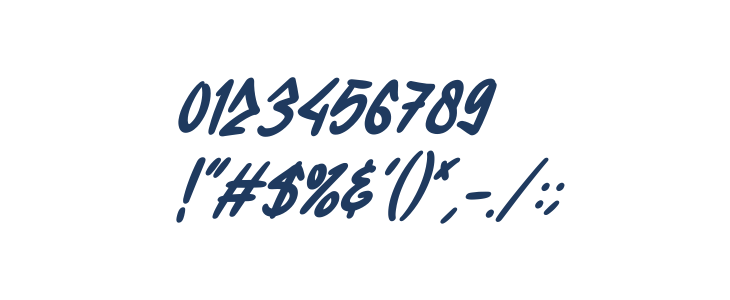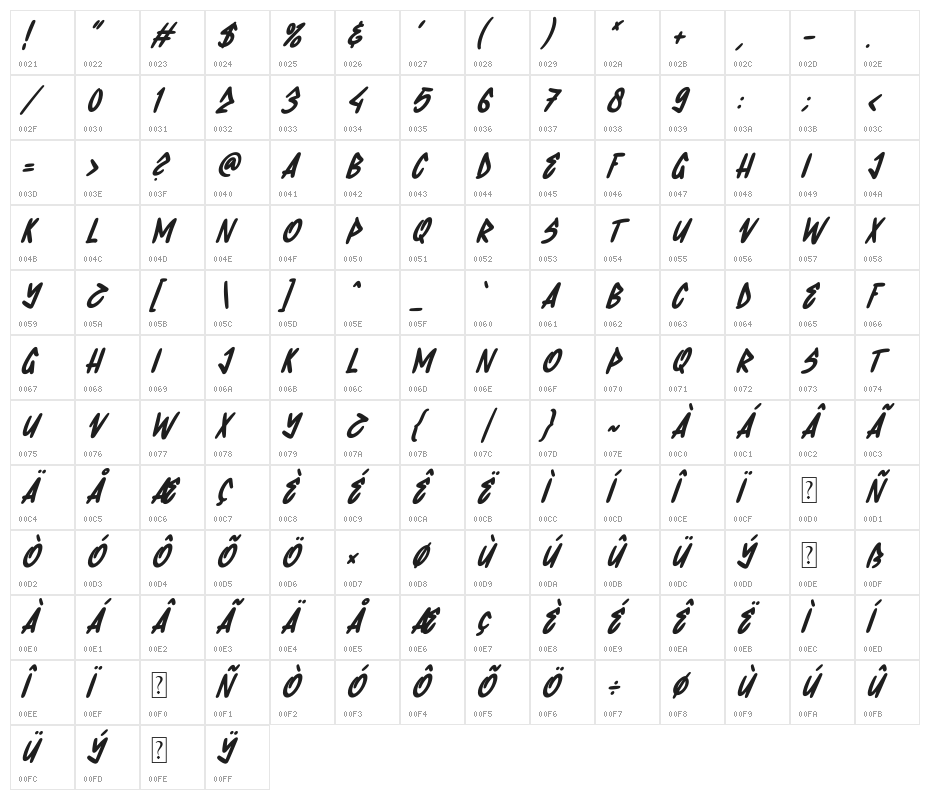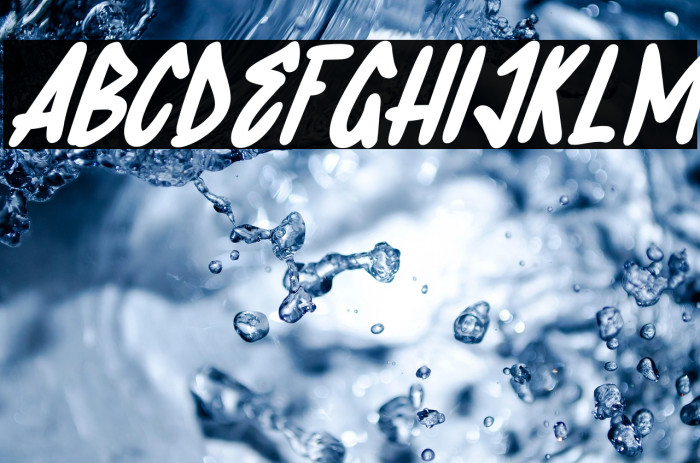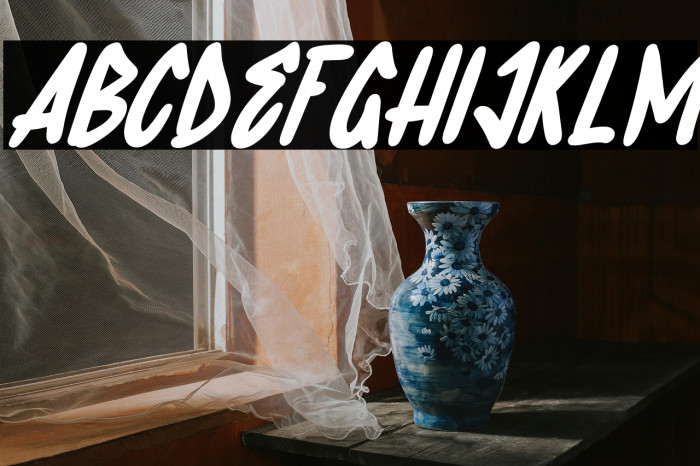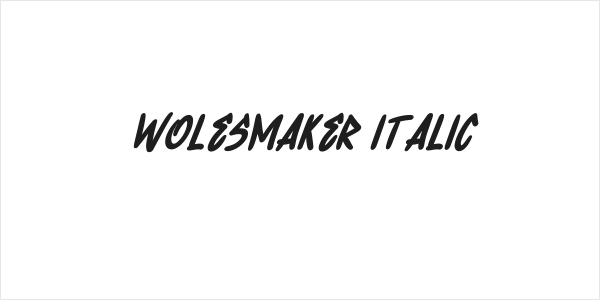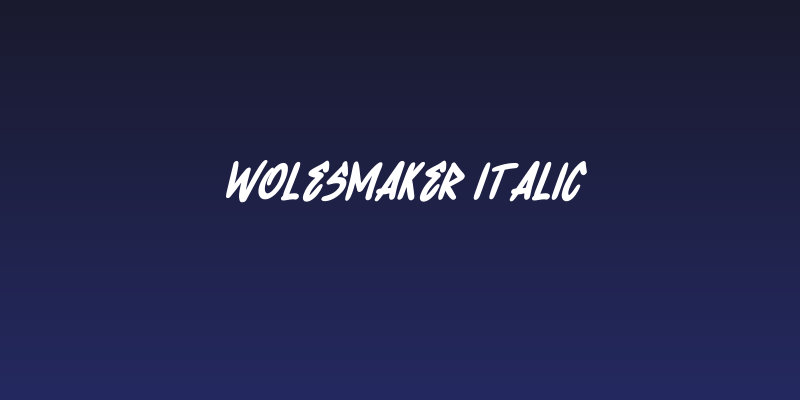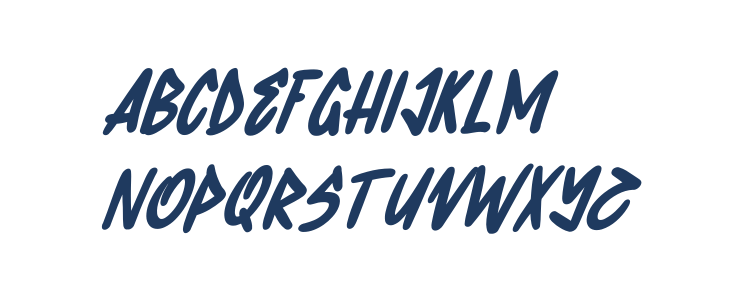
Wolesmaker Italic Font
Wolesmaker Italic Description
This font features a bold and dynamic script style with a strong italic slant, giving it a sense of motion and energy. The characters are closely connected, creating a fluid and cohesive appearance. The strokes are thick and consistent, providing a robust and impactful look. The uppercase and lowercase letters maintain a harmonious balance, while the numerals and special characters integrate seamlessly with the overall design. This font's expressive nature makes it suitable for projects that require a touch of personality and flair.
| Proposed Projects | Ideal for branding, logos, posters, and creative headlines. |